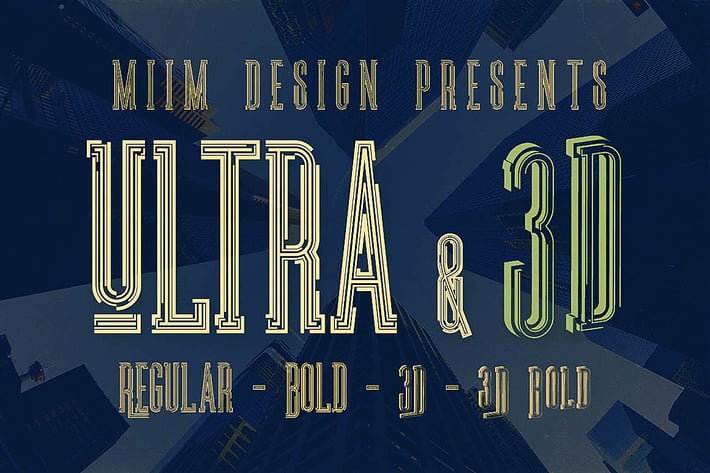
Ultra - Modern Font
Creative, modern & futuristic font for your new projects. Great for modern or futursitic style projects! Also 2 styles with 3D effect... 4 font files (otf & ttf) - regular, bold & 3D, bold 3D.